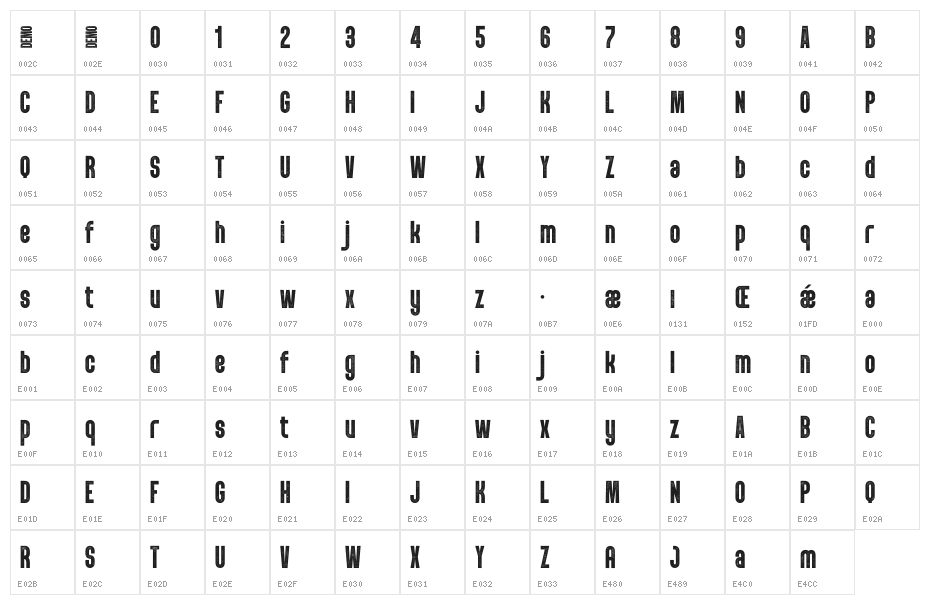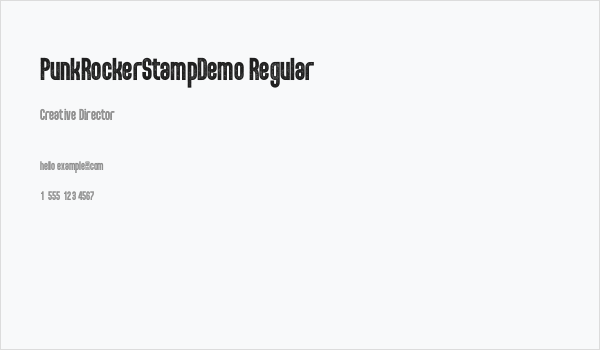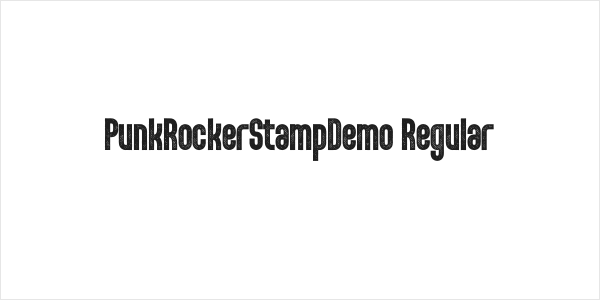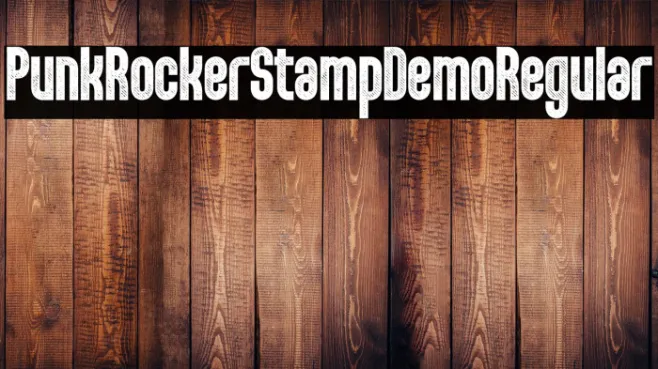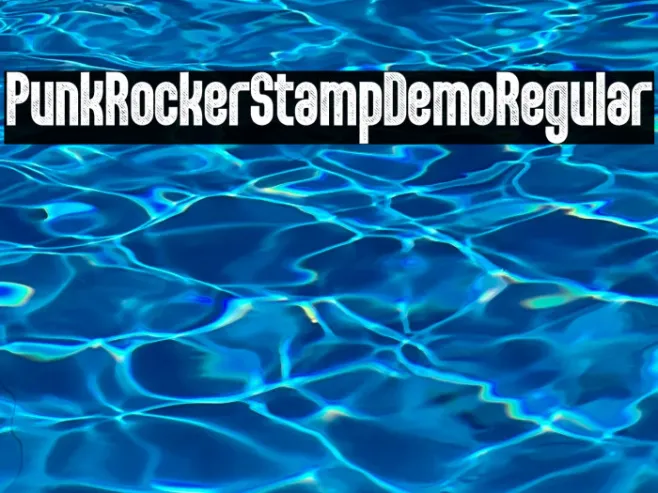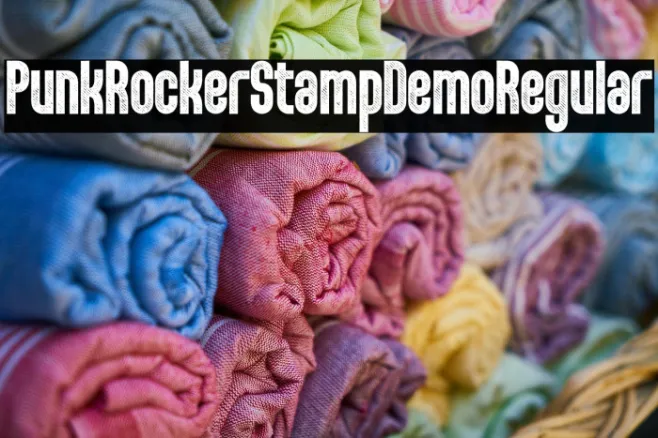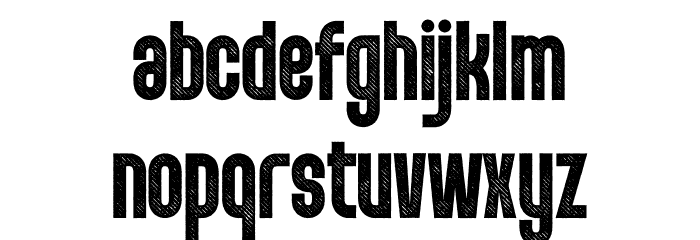
PunkRockerStampDemo-Regular Font
PunkRockerStampDemo-Regular Description
This font features a bold, distressed style that mimics the look of a stamped or printed typeface. The characters have a rough texture, giving them a gritty, urban feel. The uppercase and lowercase letters maintain a consistent weight, while the numbers and special characters follow the same rugged aesthetic. The font's design is reminiscent of punk rock and DIY culture, making it ideal for projects that require a rebellious or edgy vibe. The bold strokes and textured appearance make it stand out, ensuring that any text set in this font will capture attention.